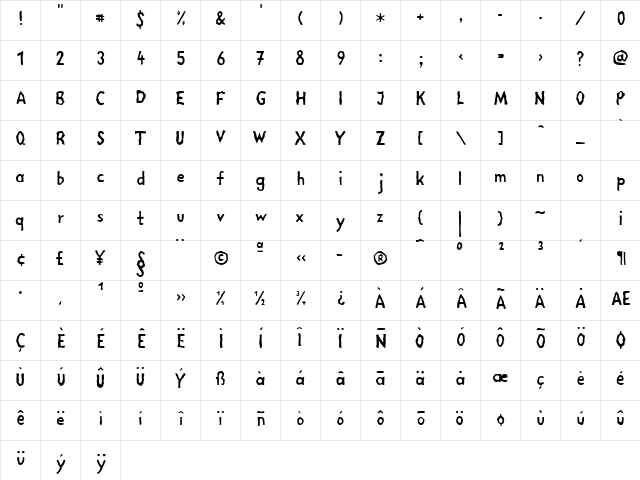
LTMega In Regular Font Preview
LTMega In Regular
Design Context for LTMega In Typeface
LTMega In is a composed and adaptable typeface that performs quietly and consistently across a wide range of design contexts.